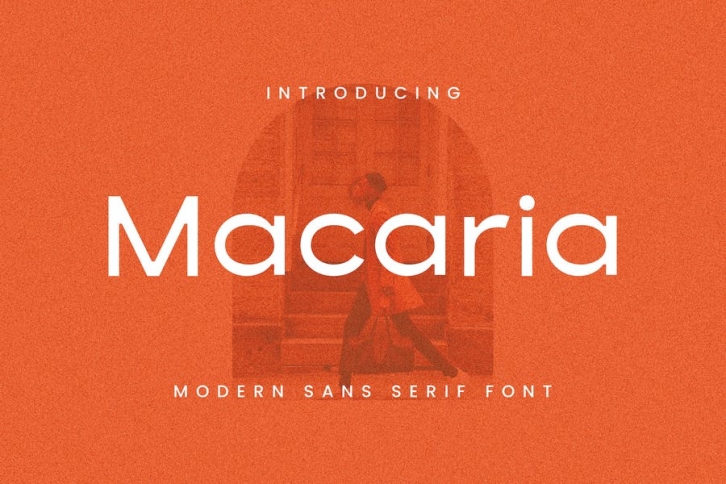
Macaria elegant modern sans serif font look with simple, clean and visual elegance with smooth curves and beautiful ligatures.
A very versatile font that works in both large and small sizes. This font is suitable for a wide variety of projects such as headlines, logos, labels, branding projects, magazines, homeware designs, product packaging, mugs, quotes, posters and more.